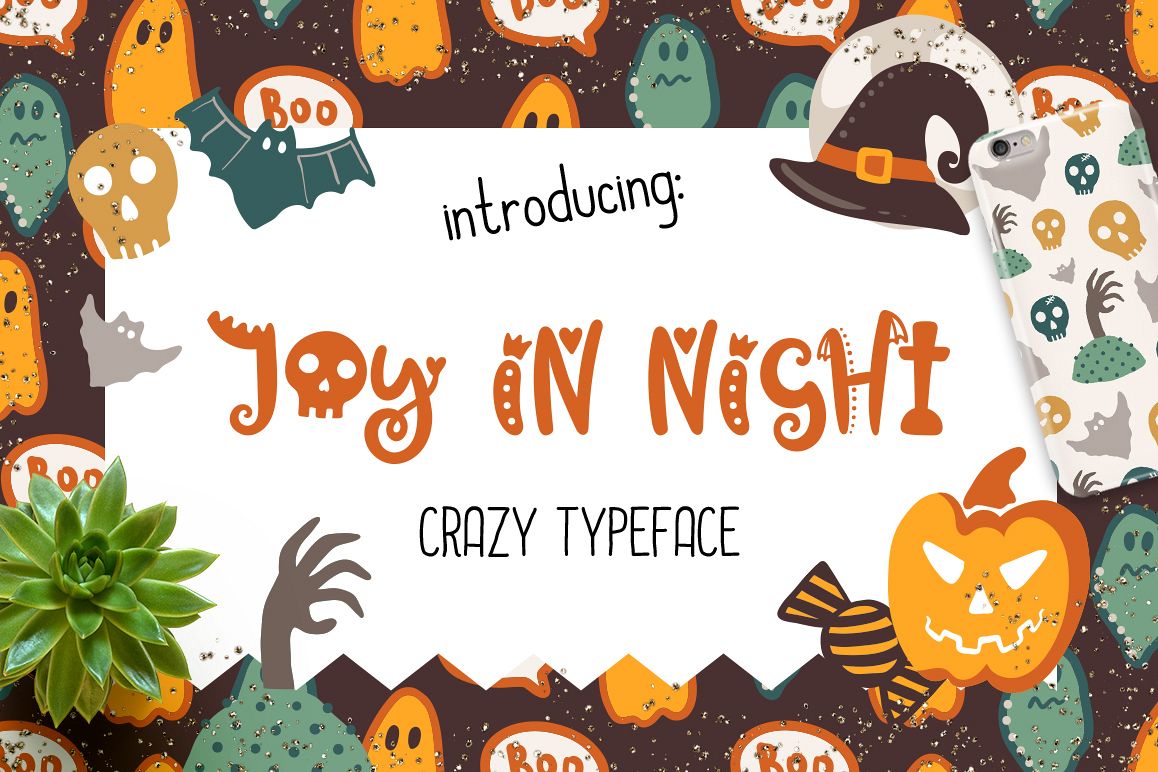
Joy in Night - Halloween Typeface
Joy in Night
Joy in Night Halloween Typeface! This funny font is perfect for cards, prints, logos, arrange illustration and decoration. It has letters, numbers, special characters, accents and ligatures.